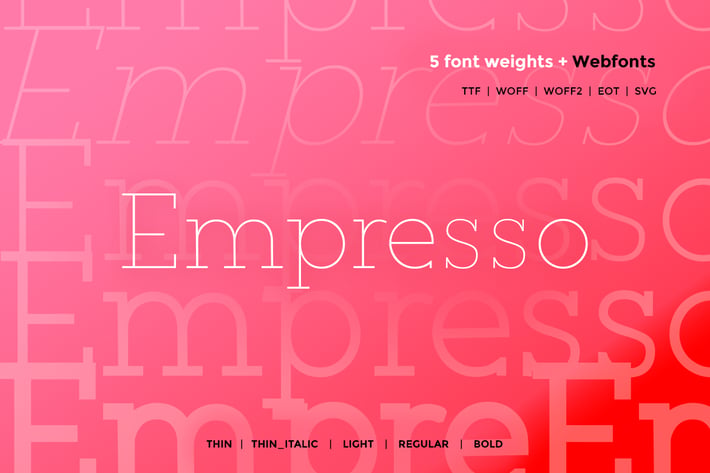
Empresso - Classic WebFont with 5 weights
Empresso Typeface
Classic serif typeface from Unbranded, which delivers a remarkable unique typography style. Empresso Family available in five weights, Thin, Thinitalic, Light, Regular and Bold weights included in the pack. The pack also includes OTF, TTF and Web Fonts (all EOT, SVG, TTF, WOFF included).